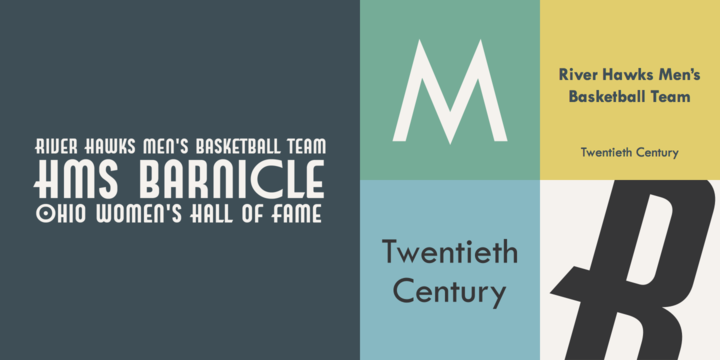
Text for book work:
Chaparral
Electra
Apollo
Optima
Display and heads in book work:
Franklin Gothic
Univers
Myriad
Futura
Clarendon (bold and black faces)
Text from job work (brochures, etc.)
Century Nova
Cheltenham
Bernhard Modern
De Vinne (not De Vinne Ornamented!)
Fontin
Display for job work
Bell Gothic
Bank Gothic
Rotis
Scripts for display
Formal 436
Scriptina
Zapfino
Viner hand (limited applicability, but it’s good)
Titling
Michelangelo Titling
Aurea
Weiss Initials
Formal 436 is a great font. I’ve never seen it before, so I just checked it out at MyFonts. Scriptina Pro has quite the flourishes. CheapProFonts is selling it on MyFonts for free, licenses for both desktop and webfont. Zapfino® Extra has many sets, with lots of curls and flourishes. And ITC Viner Hand is corroded, and in my opinion, isn’t really a script font.
Viner not your cup of tea? Look at Delphin, designed by one of the big names in the last century, Georg Trump, of Trump Medieval fame, and many others.
I have really been digging Fira. I know it is basic, but it can be used in all kinds of different things. It is kind of like Gotham’s sassy sister.